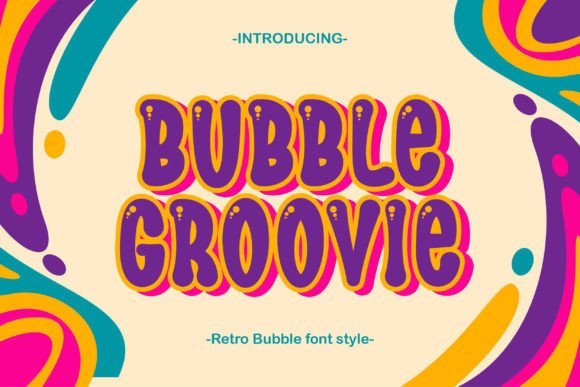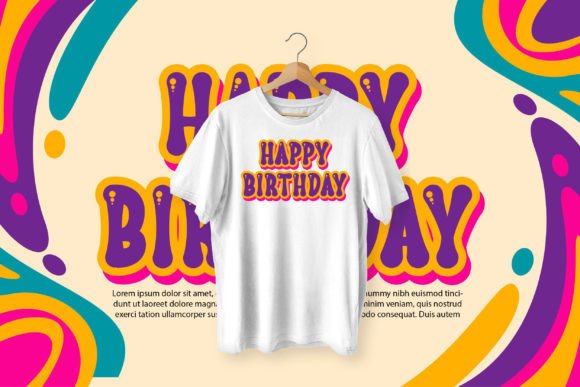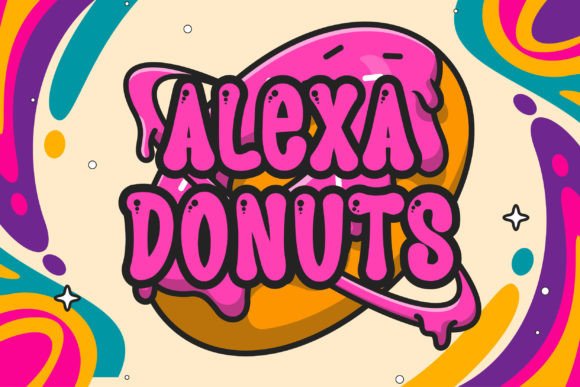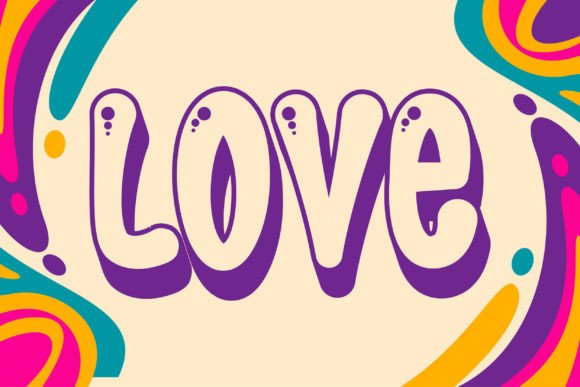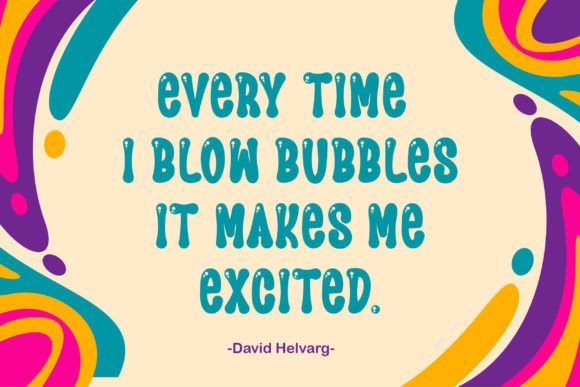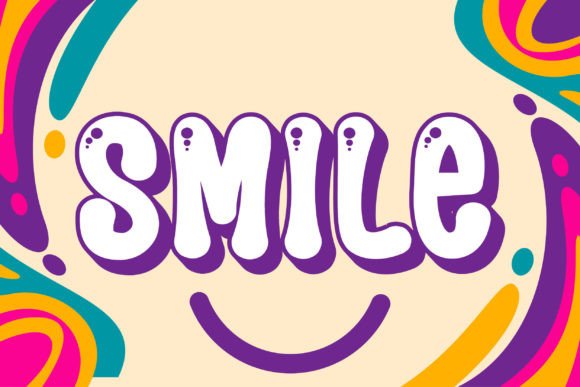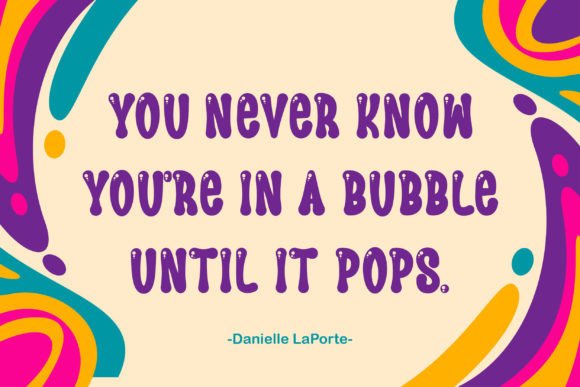
Get Ready to Groove: Unlocking the Power of Bubble Groovie Font
Have you ever stared at a blank design canvas, waiting for that spark of creativity to strike? It’s a moment we’ve all been there – the moment when our ideas come alive and our imagination runs wild. And for designers, this moment is the perfect opportunity to infuse their designs with a dash of personality and flair. Introducing the Bubble Groovie Font, a game-changing tool that’s about to take your designs to the next level.
With its bold, crisp design and unique decorative twist, the Bubble Groovie Font is the perfect addition to any project. Whether you’re crafting logos, stickers, or packaging designs, or creating captivating headlines and brand identities, this versatile font is sure to add a modern, bubbly vibe to your designs. Its value lies in its ability to help designers like you turn any design concept into an eye-catching reality, making it a must-have tool in your creative arsenal.
Bubble Groovie Font Key Features
- Font Type: Display Font
- Unique Characteristics: A playful, handwritten font with a bubbly and groovy feel, perfect for adding a touch of whimsy to designs.
- Kerning and Ligatures: Includes advanced kerning and ligature pairs for a more polished and professional look.
Bubble Groovie Font Review
As a designer, I’ve had the chance to work with a wide range of fonts, and I must say that Bubble Groovie is a fun and playful addition to my toolkit. ✨ The font’s whimsical, bubbly style is perfect for creating a lighthearted and carefree atmosphere, making it ideal for children’s books, party invitations, or any project that needs a bit of personality.
One of the things that I appreciate about Bubble Groovie is its versatility. ✨ It comes in a variety of weights, from light to bold, allowing me to adjust the font’s intensity to suit my design needs. The font also includes a range of special characters, including emojis, which adds an extra layer of fun and functionality.
However, I do have a few concerns about the font’s limitations. ⚠️ For one, the font’s bold weight can sometimes be a bit too bold, making it difficult to read in smaller sizes. Additionally, the font’s more intricate characters can be a bit tricky to edit, which may cause issues for designers who need to make last-minute changes.
Pros and Cons:
- ✨ Fun and playful style perfect for lighthearted designs
- ✨ Versatile with multiple weights and special characters
- ⚠️ Bold weight can be overwhelming in smaller sizes
- ⚠️ Intricate characters can be difficult to edit
Overall, I think Bubble Groovie is a great addition to any designer’s toolkit. While it may have some limitations, its unique style and versatility make it a valuable asset for creating fun and engaging designs.
Use the font to add a playful and whimsical touch to your designs, especially in children’s materials or creative projects.
The Bubble Groovie Font is commonly used in:
Children’s books and educational materials.
Party invitations and event materials.
Creative and artistic projects.
Playful social media graphics and posts.